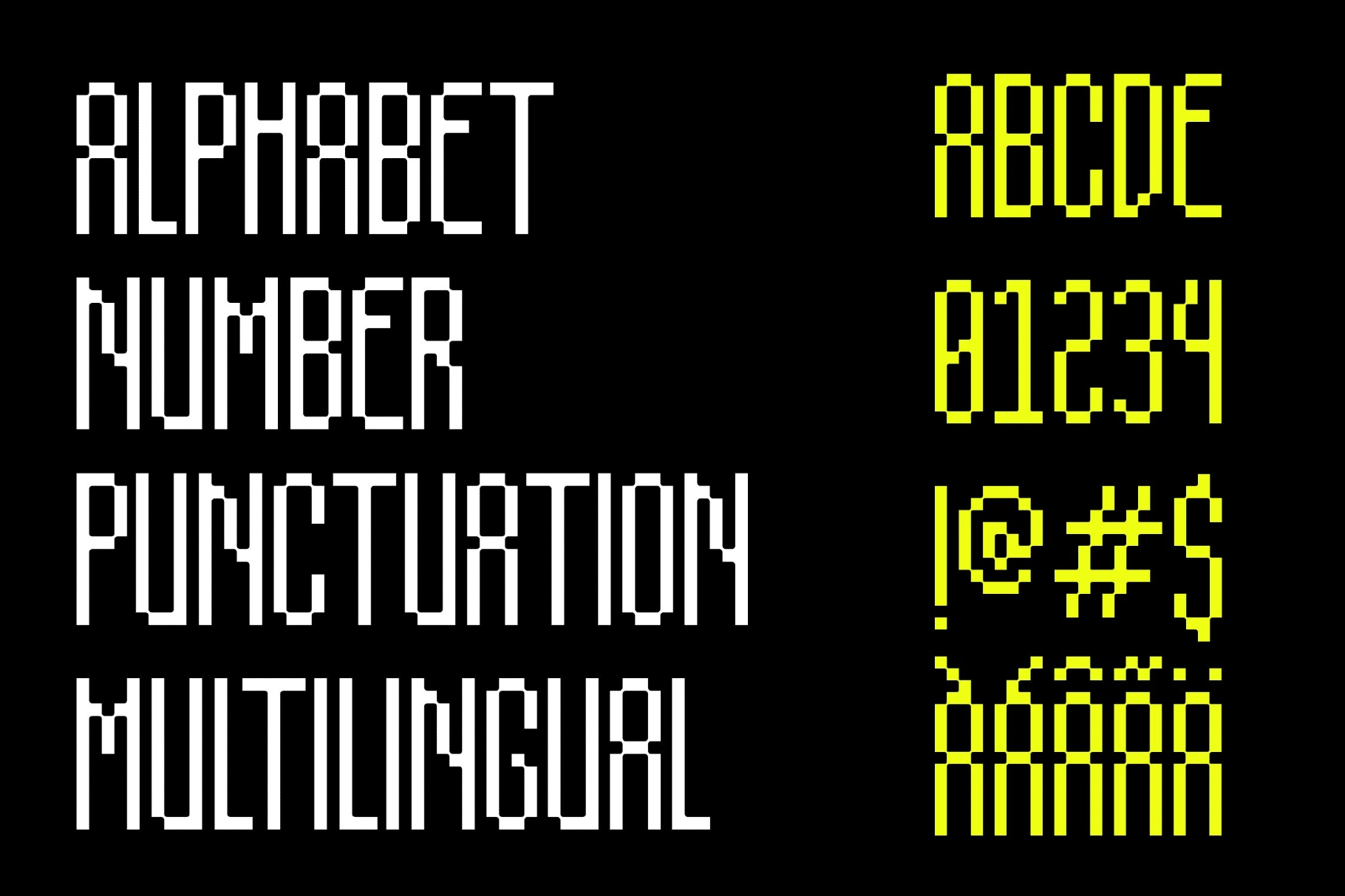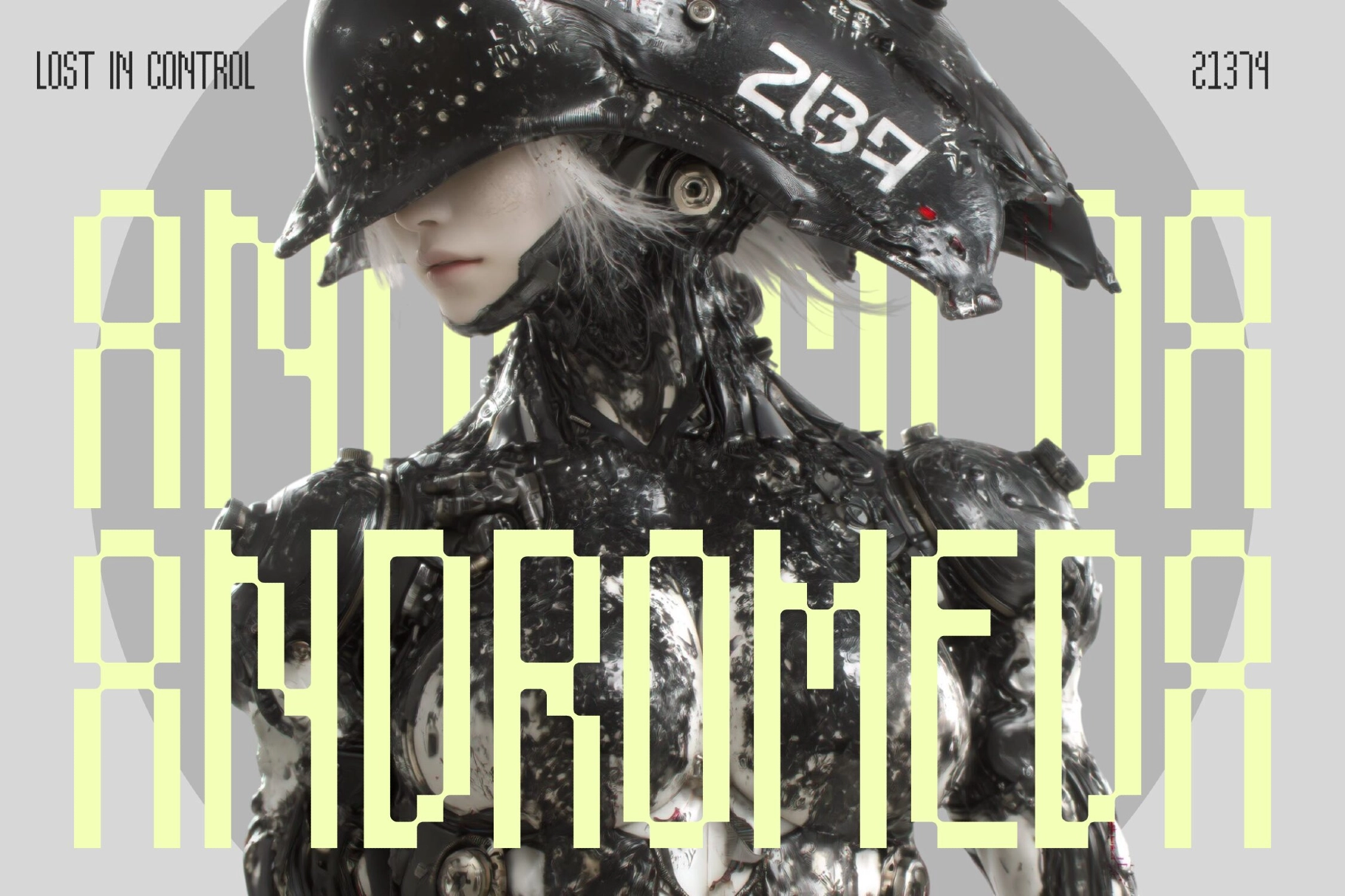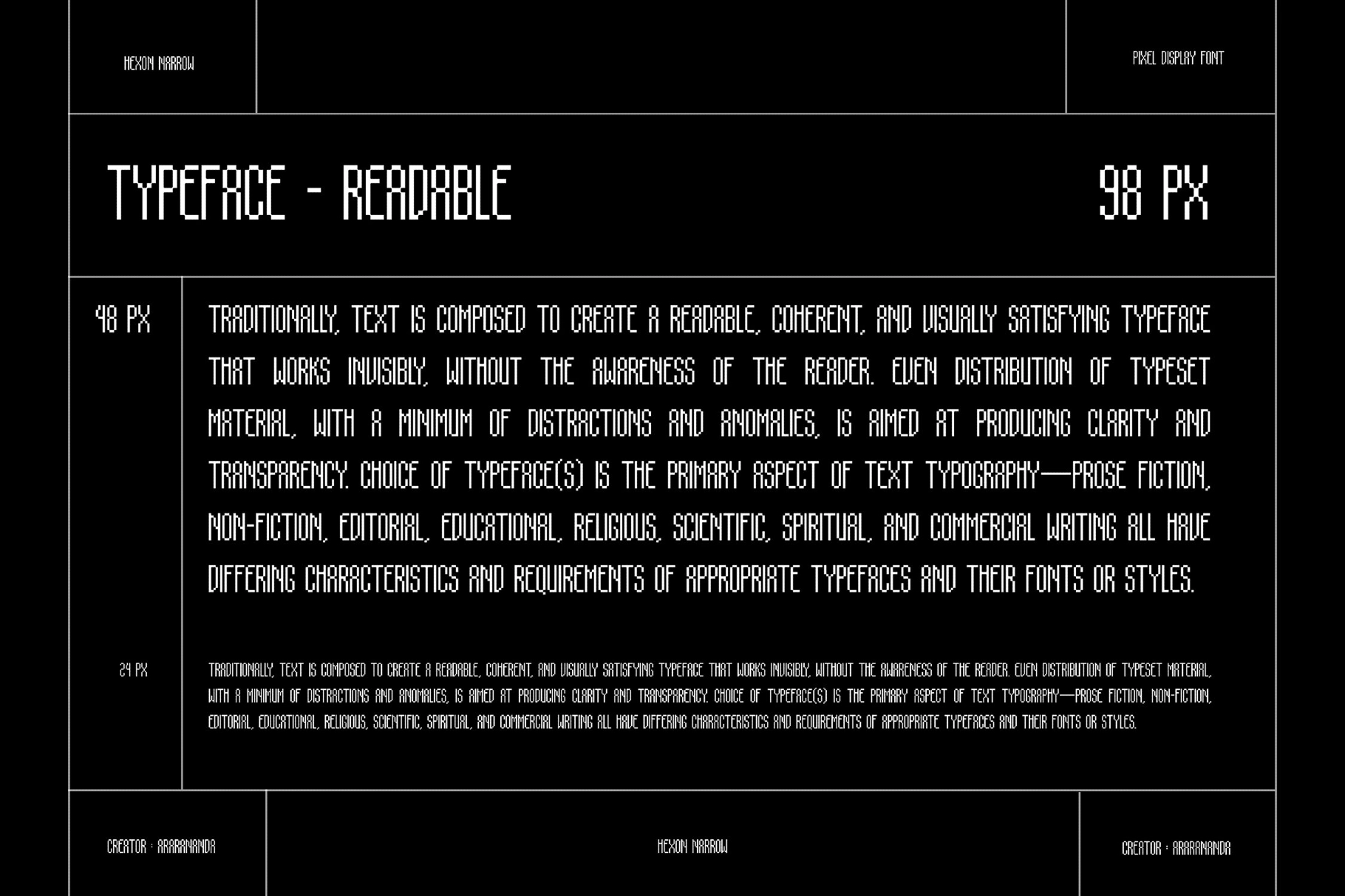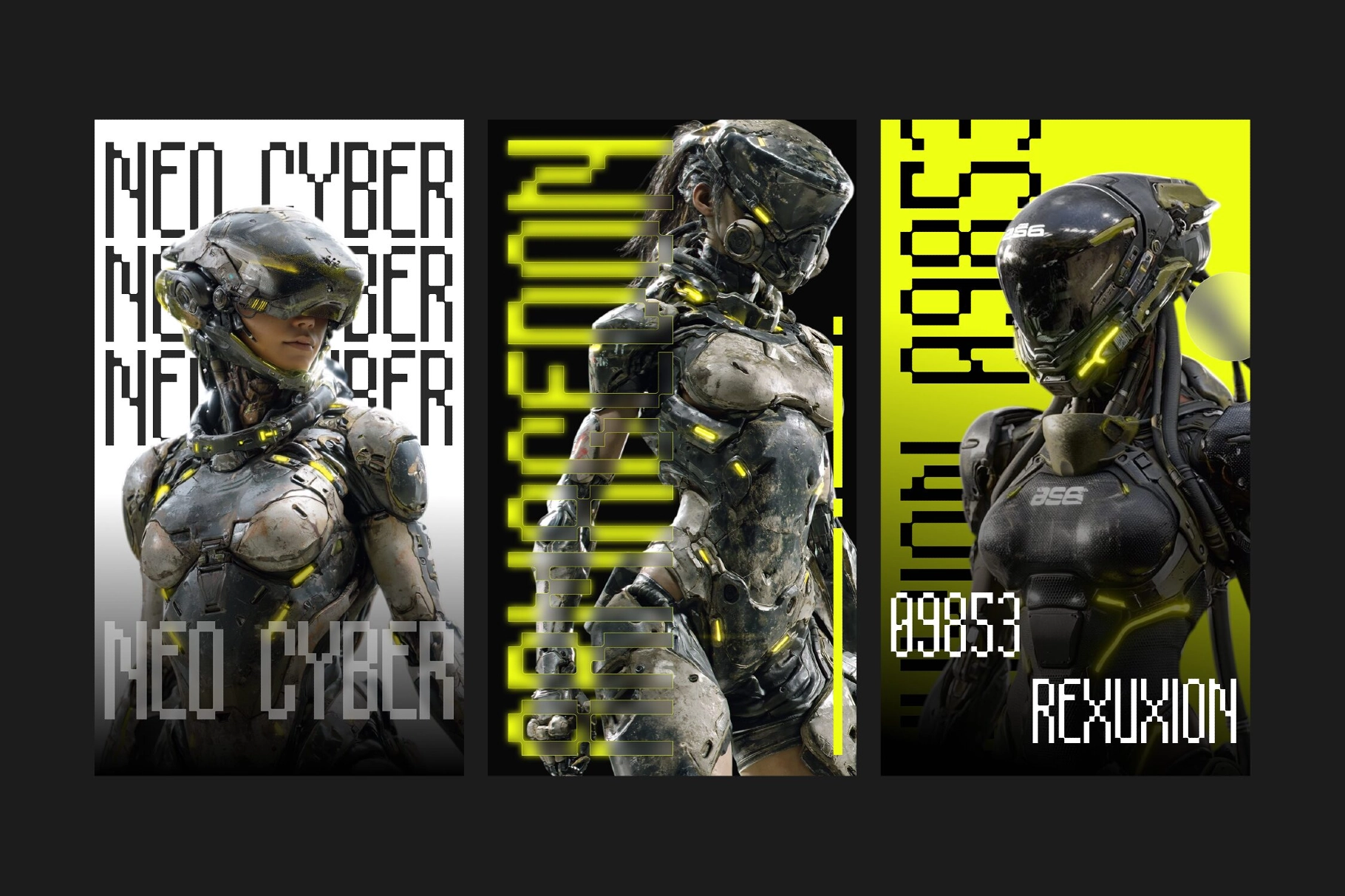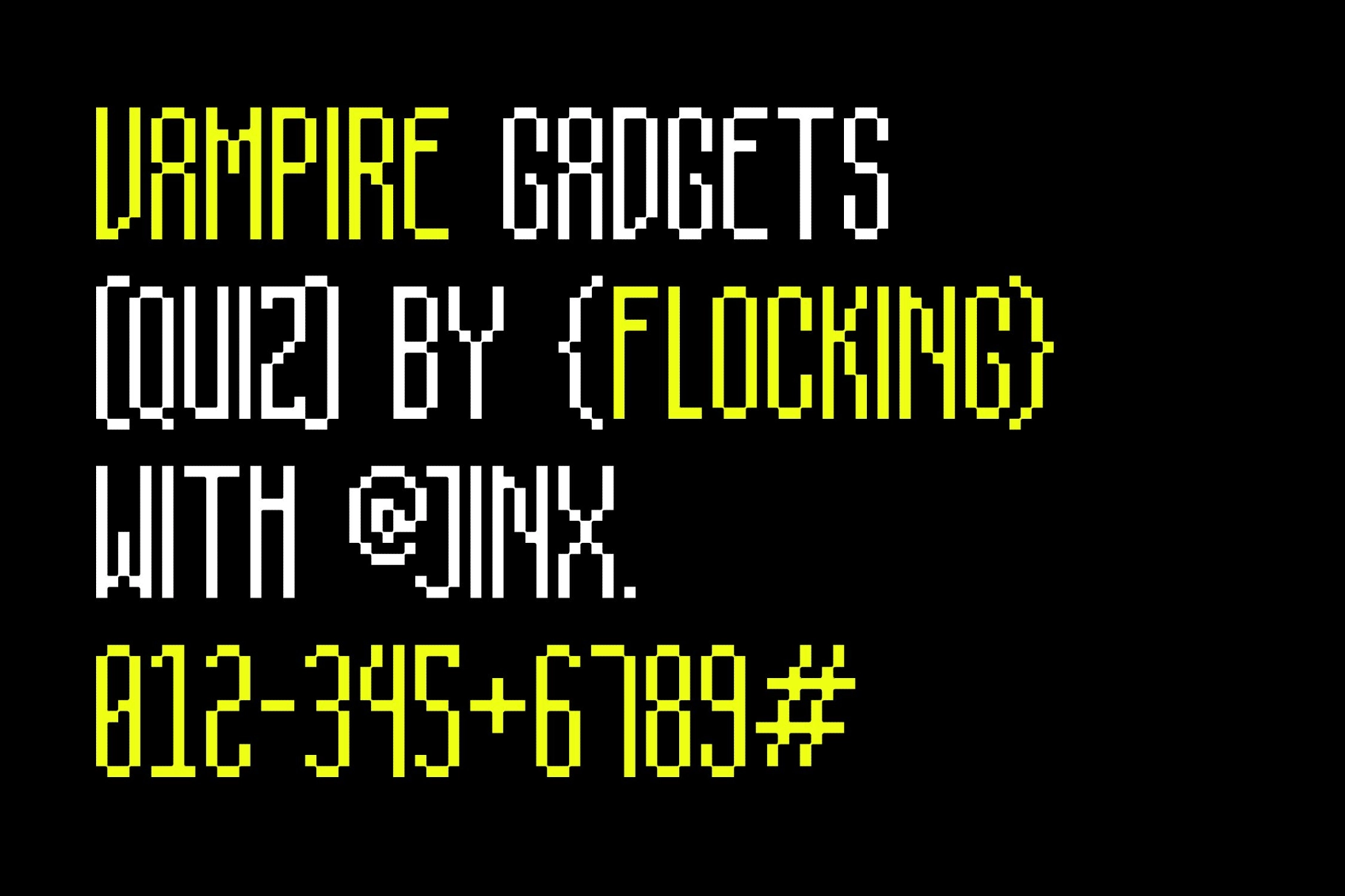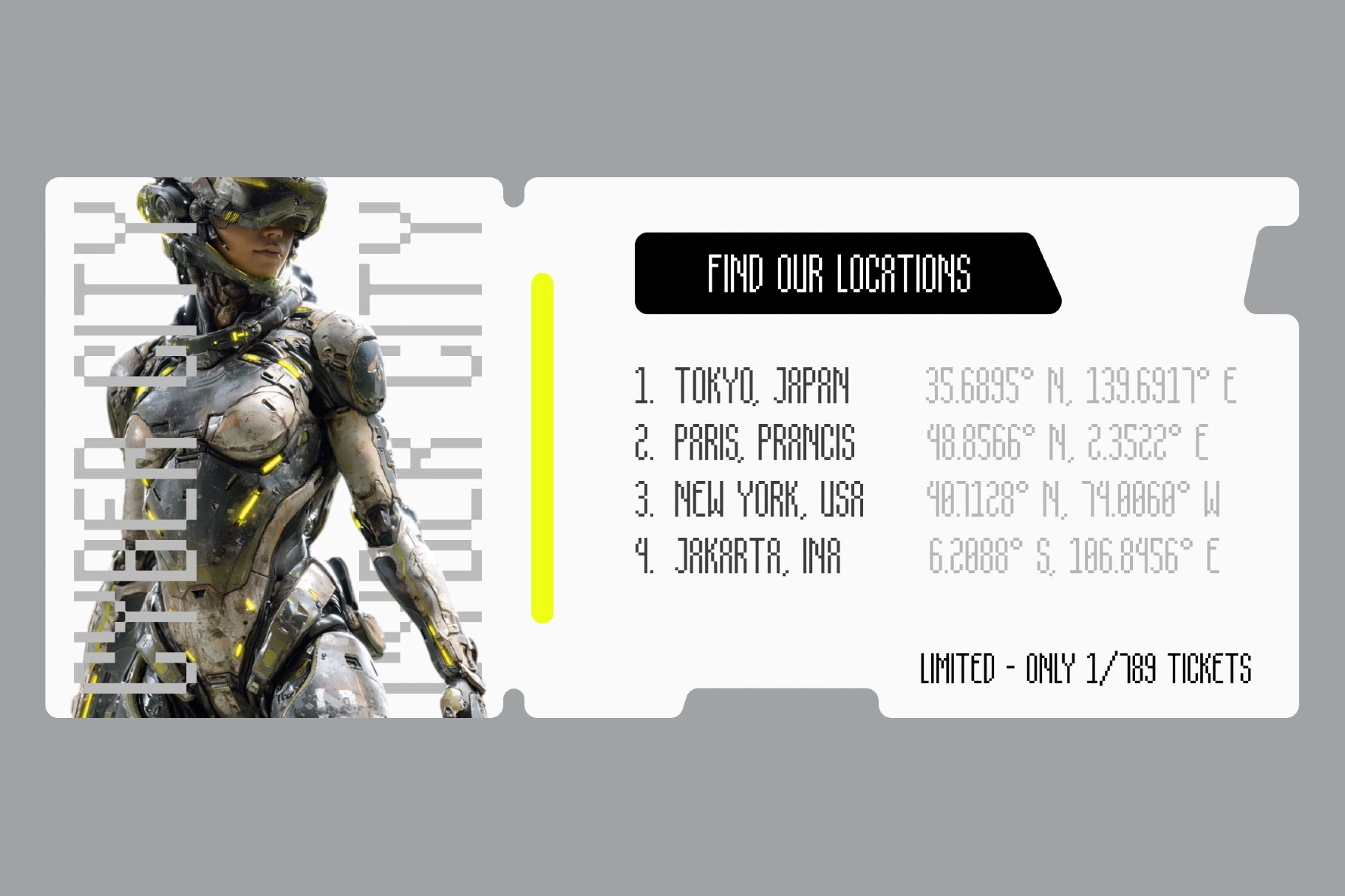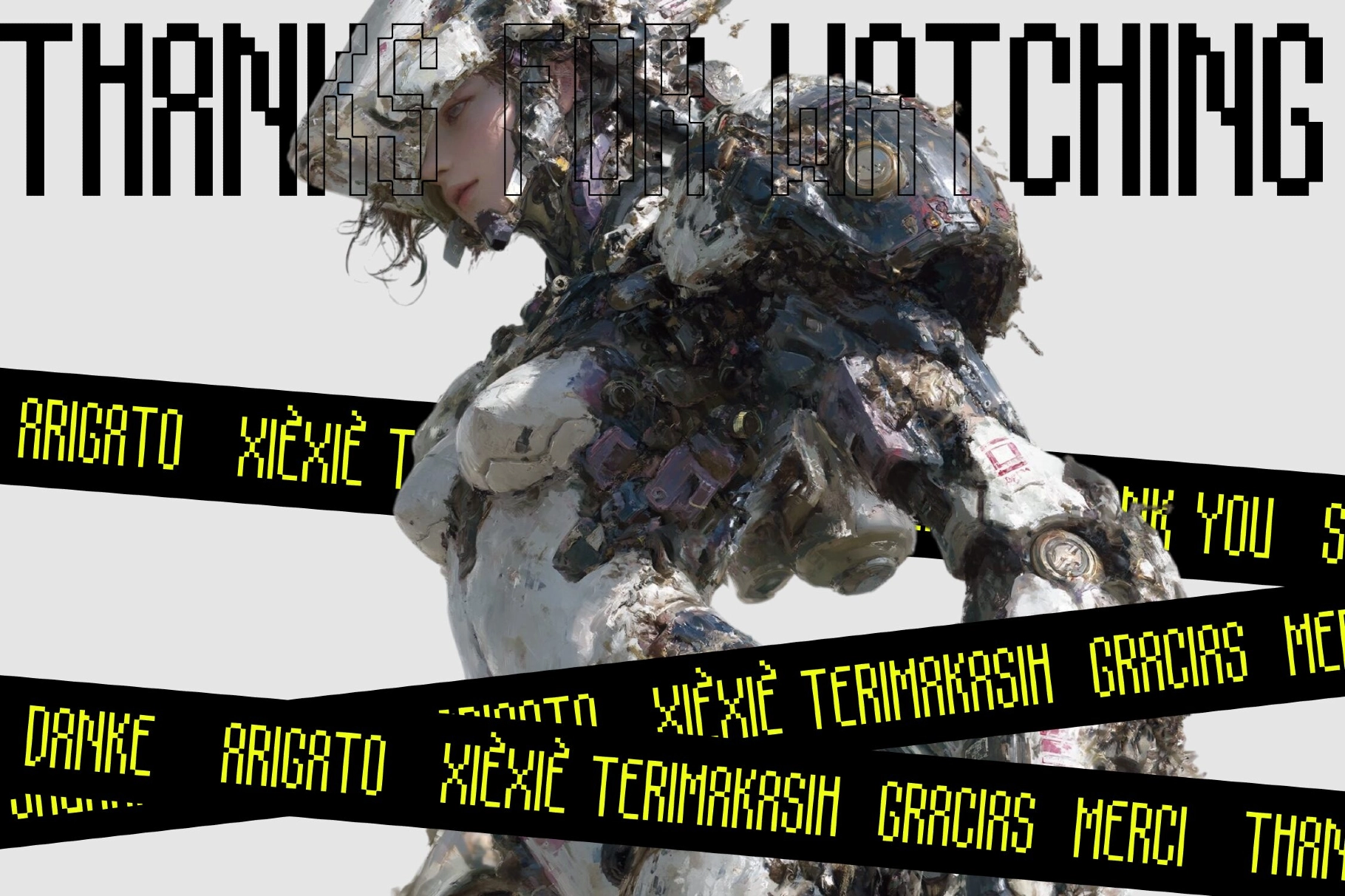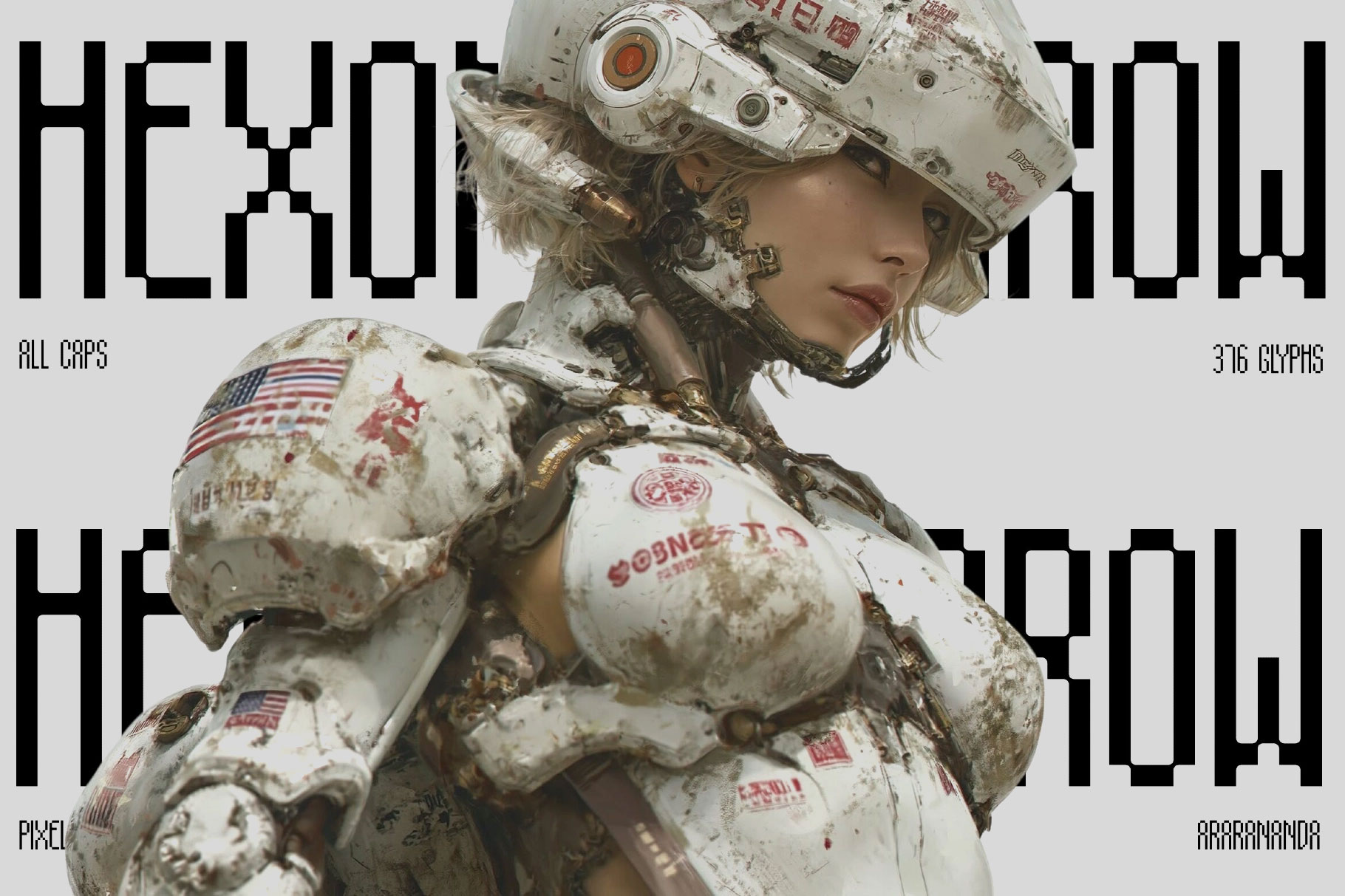
Hexon Narrow - Sci-Fi Pixel Display Font
This pixel display font is narrow, sharp, and engineered for high-contrast titles with a clear sci-fi pulse. Its tall condensed forms, squared cuts, and digital rhythm give headlines a coded, arcade-terminal attitude without sacrificing readability.
Hexon is made for cyberpunk posters, game titles, tech branding, esports graphics, album covers, streetwear prints, UI-inspired layouts, event flyers, packaging, merch, YouTube thumbnails, and experimental editorial work. The all-caps structure keeps compositions bold and compact, while the extended glyph set gives designers room for multilingual projects and symbol-heavy layouts.
- 316 glyphs
- All caps character set